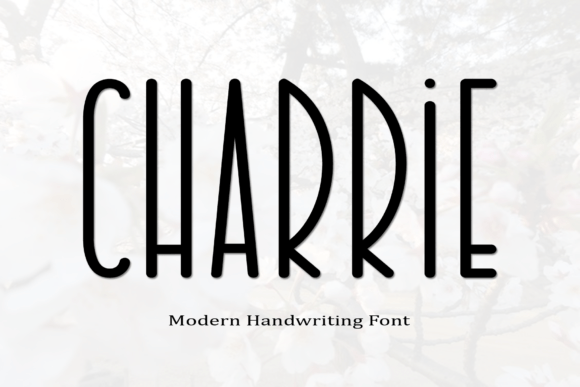
Introducing Charrie Font, the epitome of elegance and simplicity in the world of sans serif fonts. Created by the renowned RR Studio, this typeface is a true gem that combines a classic feel with a touch of contemporary style. If you're searching for the perfect font to elevate your creative projects, look no further.
Charrie Font is your go-to choice for any design endeavor, whether it's crafting a stunning logotype, creating captivating headlines, or establishing a strong corporate or brand identity. With its versatile nature, this font seamlessly fits into various industries, from the apparel sector to the realms of music, movies, games, and beyond.
One of the defining qualities of Charrie Font is its unique and random strokes, which exude a sense of freedom and creativity. These distinctive features make it stand out from the crowd, allowing your designs to shine with individuality and character.
Imagine the impact Charrie Font will have on your posters, magazines, books, comics, and cartoons. Its ability to effortlessly blend into different mediums ensures that your creative vision remains intact, while adding a touch of sophistication and allure.
But it doesn't stop there! Charrie Font is also perfect for digital platforms, making your YouTube videos, Instagram posts, and website content truly eye-catching and memorable. Its clean and crisp appearance ensures legibility, while its artistic flair sets it apart from other fonts.
The Best Font For Signature Adobe, Charrie Font will undoubtedly leave a lasting impression on your audience. Its emotional impact is unparalleled, evoking feelings of elegance, sophistication, and modernity.